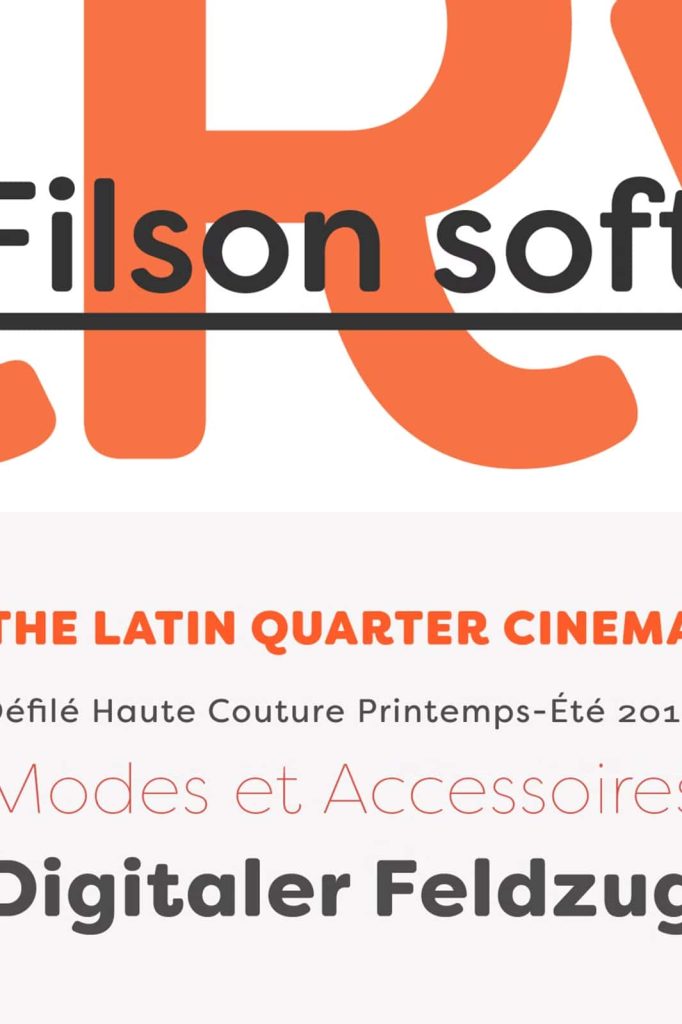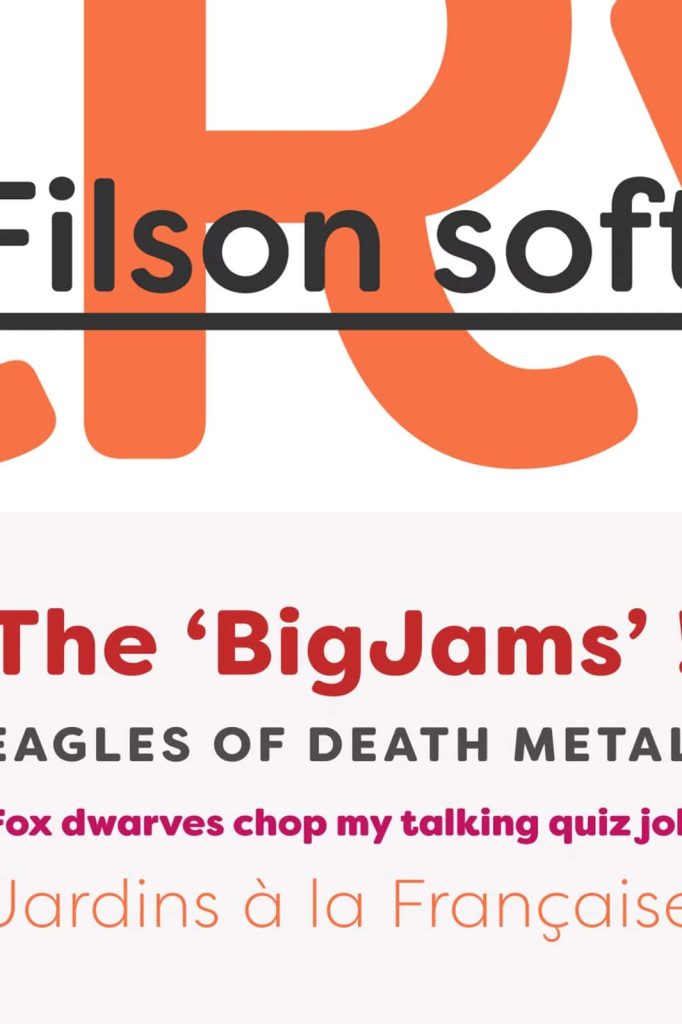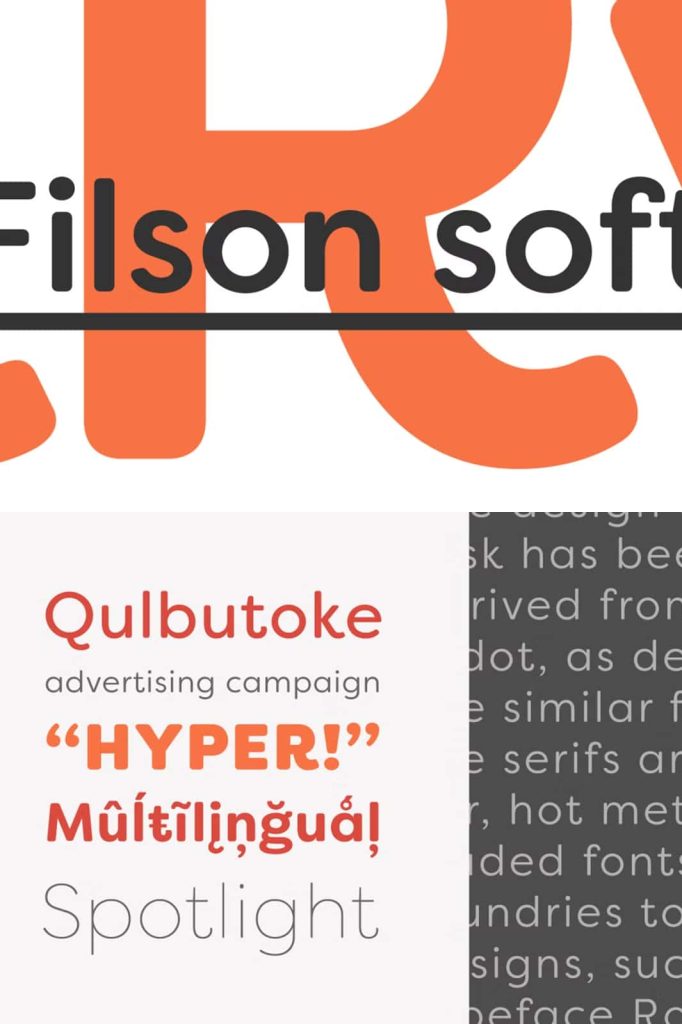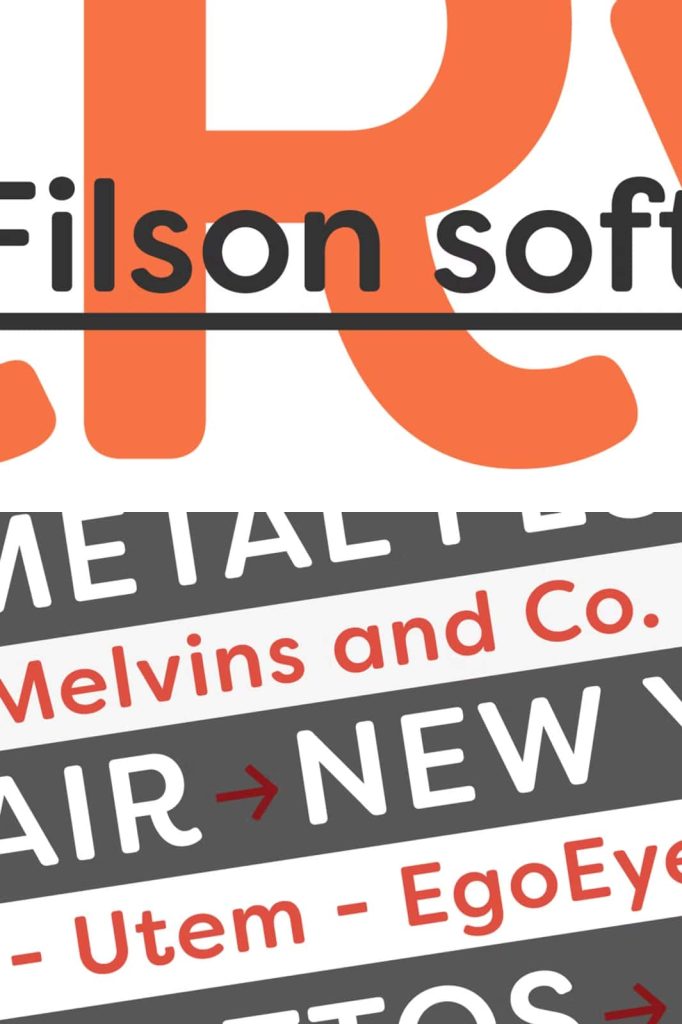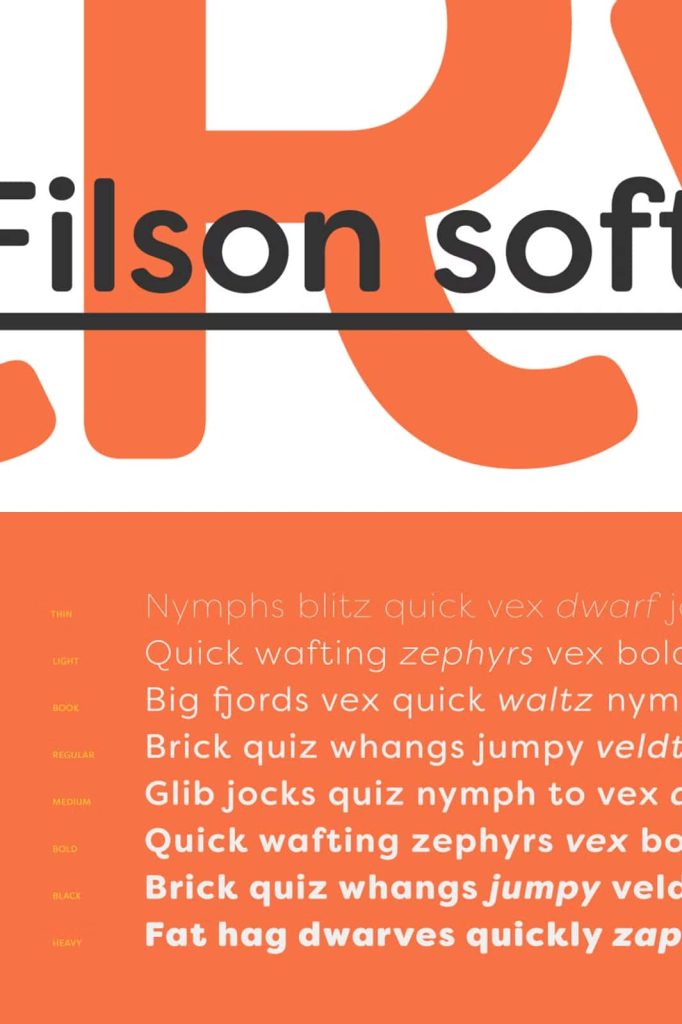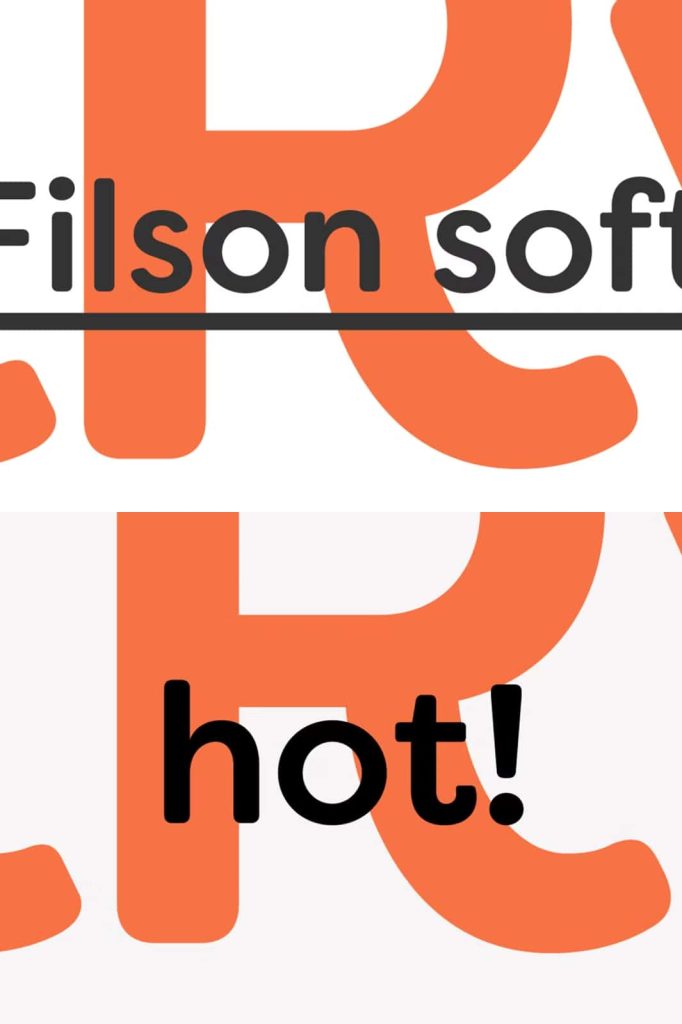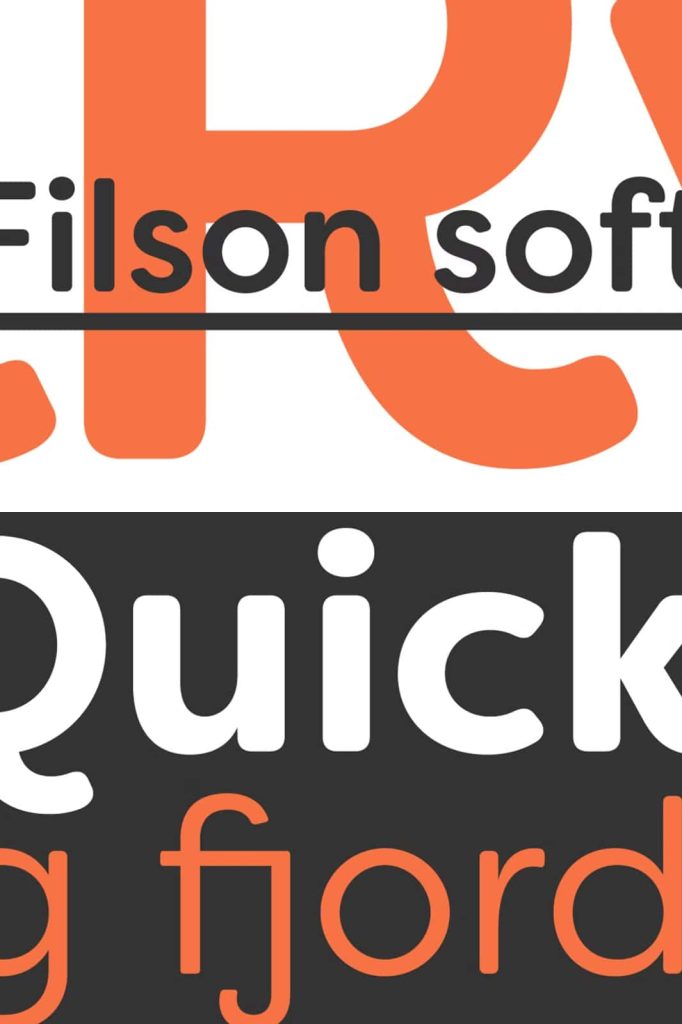
Filson Soft: A Rounded Sans Serif Font with Elegance and Warmth
Filson Soft is a refined rounded sans serif font family developed as the softer counterpart to the widely appreciated Filson Pro. While maintaining the strong structural foundation of the original design, Filson Soft introduces smooth curves and rounded terminations that transform its overall personality. The result is a typeface that feels welcoming, elegant, and modern, making it a powerful tool for designers who want to communicate clarity with warmth.
This font family blends precision and friendliness in a way that feels natural and confident. Filson Soft does not simply soften sharp edges; it redefines the tone of the typography, allowing messages to feel approachable while still retaining a professional and polished presence.
Distinctive Letterforms That Define the Typeface
One of the most striking aspects of Filson Soft lies in its carefully crafted letterforms. At first glance, the distinctive shapes of the letters ‘K’, ‘Q’, and especially ‘R’ immediately stand out. These characters add a subtle sophistication that elevates the entire font family and gives it a recognizable identity.
The letter ‘R’ plays a particularly important role in shaping the elegance of Filson Soft. Its unique construction creates a smooth visual flow that feels both modern and refined. These thoughtful design decisions ensure that the font remains memorable without becoming distracting or overly decorative.
Rounded Terminations for a Friendly Visual Tone
The rounded terminations are the defining feature that separates Filson Soft from its predecessor. These soft endings reduce visual tension and introduce a sense of balance and harmony across words and lines of text. This approachability makes Filson Soft especially effective for projects that aim to connect with audiences on a more personal level.
By replacing sharp edges with gentle curves, the font communicates openness and ease. This quality makes it particularly well-suited for brands, titles, and designs that want to feel inclusive, modern, and user-friendly.
Perfect for Original Titles and Eye-Catching Headlines
Filson Soft performs exceptionally well in titles and headlines where visual impact and tone are equally important. Its rounded structure draws attention without appearing aggressive, allowing headlines to stand out while remaining easy to read. This balance makes it a reliable choice for editorial design, marketing materials, and digital content.
The font’s elegant proportions help maintain consistency and rhythm across layouts. Whether used in large display sizes or smaller headline applications, Filson Soft maintains clarity and visual appeal.
A Strong Choice for Branding and Creative Projects
In branding design, Filson Soft adds a distinctive voice that feels both professional and approachable. The font’s friendly nature helps brands appear more relatable while still maintaining authority and trust. This makes it particularly effective for technology companies, lifestyle brands, creative agencies, and educational projects.
Logos designed with Filson Soft benefit from its balanced structure and elegant details. The rounded forms soften brand identities without diminishing strength, resulting in visuals that feel modern, confident, and enduring.
Designed for Versatility Across Print and Digital Media
Filson Soft adapts seamlessly to both print and digital environments. In print, its smooth curves reproduce cleanly, maintaining consistency across posters, brochures, packaging, and editorial layouts. The font’s structure ensures that text remains legible and visually pleasing at various sizes.
In digital applications, Filson Soft enhances user experience through clarity and friendliness. Its rounded shapes reduce visual fatigue, making it suitable for websites, mobile interfaces, presentations, and social media graphics. This versatility allows designers to use the font confidently across multiple platforms.
A Typeface That Enhances Future Creations
Filson Soft is designed with longevity in mind. Its modern aesthetic does not rely on fleeting trends, allowing it to remain relevant as design styles evolve. The font provides a solid typographic foundation that designers can return to repeatedly for different projects.
By combining elegance, readability, and warmth, Filson Soft supports creative freedom while maintaining professional consistency. It gives future creations a friendly aspect that resonates with audiences and strengthens visual communication.
Balanced Typography with Personality and Precision
Filson Soft stands as a thoughtful evolution of Filson Pro, offering a softer and more inviting alternative without sacrificing structure or clarity. Its distinctive characters, rounded terminations, and refined proportions work together to create a cohesive and expressive typeface.
For designers seeking a rounded sans serif font that delivers elegance, friendliness, and versatility, Filson Soft provides a dependable and visually engaging solution. It brings personality to titles, strength to branding, and warmth to every design it touches.